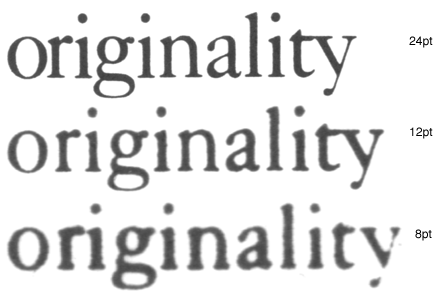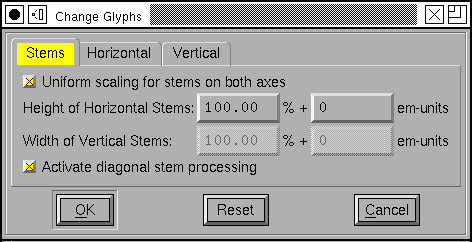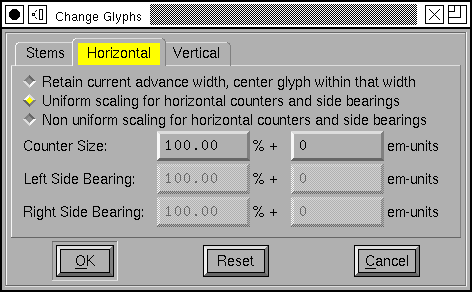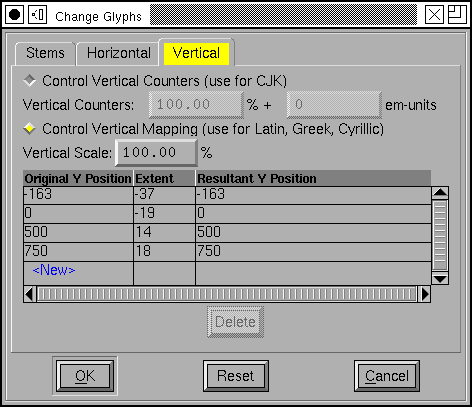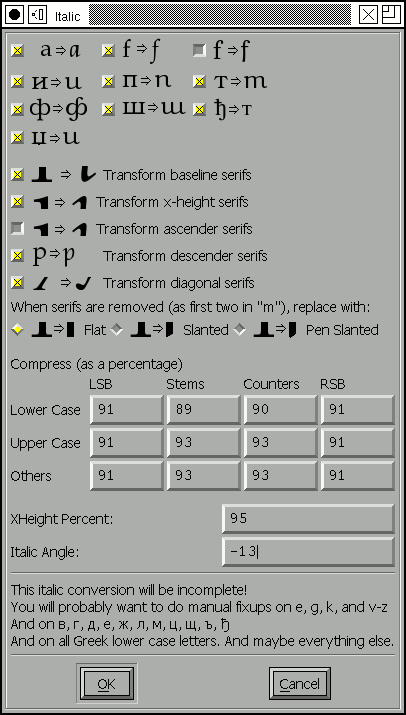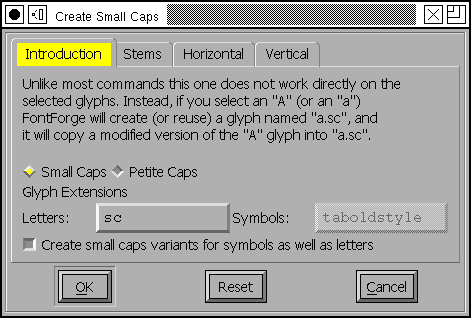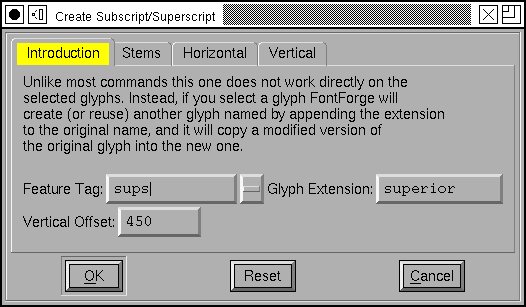
The Style sub-menu provides a series of dialogs which allow you to create some common stylistic variations of latin fonts.
The results will probably always need to be examined and fixed up by the human eye, but they may provide a help in changing a font's attributes.
It "works" best on sans serif, non-Oblique fonts.
Bold fonts have thicker stems and are slightly more extended than normal fonts. In Knuth's Computers & Typesetting, the bold fonts have a stem width that is approximately 1.6 (1.68(at 12pt)-1.5(at 5pt)) times the stem width of the normal font. This is very similar to the 1.75 suggested by Microsoft's ratio of 700/400 (700 being the numeric weight of a bold font, and 400 being the numeric weight of a normal font).
In Knuth's Computer Modern Bold Extended Roman, the "m" glyph is extended to 1.15 times the width of the "m" in Computer Modern Roman, and the x-height is 1.03 times higher.
| Font | Ratio of Bold/Regular Stems | Ratio of DemiBold/Regular | Expansion | Bold serif height/Regular serif | Bold serif width/regular |
| Arial | 1.5 | 1 | |||
| Times New Roman | 1.7 | 1 | 1 | .98 | |
| Computer Modern Roman | 1.68(at 12pt) - 1.5(at 5pt) | 1.15 | |||
| Adobe Helvetica | 1.6 | ||||
| Adobe Times | 1.56 | 1.17 | 1.10 | .97 | |
| Garamond Antiqua | 1.5 | 1.05 | .90 | ||
At first glance this does not seem like much of a transformation, after all postscript and truetype fonts can be drawn at any pointsize. But traditionally, as the point-size decreases the boldness (thickness of the stems) increases slightly, the counters and side bearings also change, and the overshoot increases. For metal type there were generally three drawings for a glyph in a given font, one for pointsizes less than 10, one for pointsizes 10,11 and 12, and one for display sizes (above 12). Most computer vector fonts do not show this change, while Knuth's Computer Modern fonts have a continuum:
| 17pt | 12pt | 10pt | 9pt | 8pt | 7pt | 6pt | 5pt | (12pt compared to cmr 12pt) | ||
|---|---|---|---|---|---|---|---|---|---|---|
| cmr | 83% | 100% | 109% | 116% | 120% | 124% | 130% | 139% | Computer Modern Roman | 100% |
| cmti | 100% | 106% | 112% | 115% | 122% | Computer Modern Text Italic | 94% | |||
| cmbx | 100% | 105% | 108% | 112% | 117% | 120% | 123% | Computer Modern Bold Extended | 170% | |
| cmtt | 100% | 109% | 116% | 120% | Computer Modern Typewriter | 100% | ||||
| cmss | 99% | 100% | 102% | 109% | 113% | Computer Modern Sans Serif | 120% |
To the left is an example of the same word (taken from a font specimen sheet) printed at 3 different point sizes (8,12 and 24) and then scaled up to the same size. The most obvious difference is that the glyphs are proportionally wider at the smaller pointsizes. It is less apparent that the stems of the letters are different:
| 24pt | 12pt | 8pt | |
|---|---|---|---|
| stem of the "n" (compared to 12pt) | 89% | 100% | 117% |
| counter of the "n" (compared to 12pt) | 104% | 100% | 89% |
| width of "originality" (compared to 12pt) | 93% | 100% | 104% |
A SmallCaps font is made by scaling the capital letters approximately to the x-height (so that they are the same height as lower case letters without ascenders) and then adjusting the stem widths (emboldening) so that they too will match stem widths of the lower case.
The Italic transformation contains at least five parts: A change in the letterforms of the lowercase letters, a slight decrease in x-height, a skew, and a condensation and a narrowing of the vertical stems..
| Italic Angle | Condensation | Stem width change | X-Height change | |
| Computer Modern Text Italic | 14º | 91% | 94% | 100% |
| Times New Roman | 16º | 100% | 91% | 96% |
| Adobe Times | 15 | 100% | 92% | 95% |
Letterform changes in Galliard:
Letterform changes in
Caslon:
(These glyphs have been deskewed to display the shape transformation
better.)
Cyrillic Letterform
changes:
(These glyphs are also deskewed.)
This is not a complete list, but it shows most of the salient features of such a transformation.
The Oblique transformation is a simple skew,
| Computer Modern Slanted Sans Serif | 9.5º |
| Arial Italic (actually an oblique) | 12º |
| Adobe Helvetica Oblique | 12º |
In these two transformations the stem width is held constant but the horizontal counter sizes and side bearings are increased (or decreased for condensed).
The Change Weight dialog starts out by stroking the glyph (Element->Expand Stroke) and removing the internal contour. This means that each stem in the glyph will now be wider by the number of em units specified at the top of the dialog. Of course, this number may be negative, in which case you will be making a lighter, rather than a bolder variant of the glyph.
You may find that in some cases the Change Glyph dialog will do a better job of emboldening or thinning a font. Instead of increasing all stems by the same fixed amount it will increase the thickness of each stem proportionate to its current thickness.
like these defaults you have all the options of the
Change Glyphs dialog to play with.
These commands
are not perfect. If there just isn't room in the glyph for the desired
transformation contours may overlap. Do look at your results and be prepared
to fix them up.